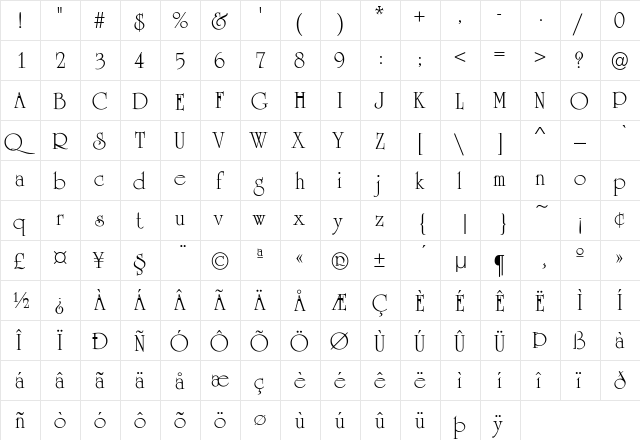
UniversityRoman Regular
Design Context for UniversityRoman Typeface
UniversityRoman takes a measured approach to typography — its balanced proportions and neutral character make it a reliable workhorse for both digital and print work.